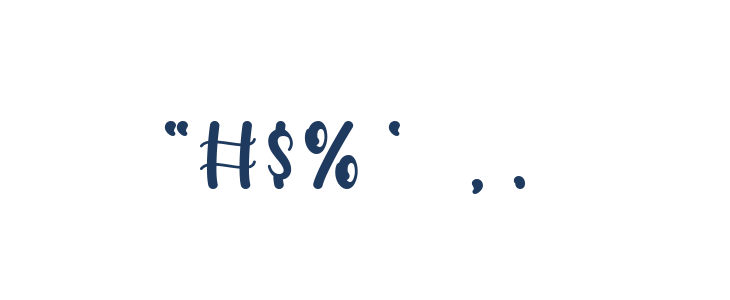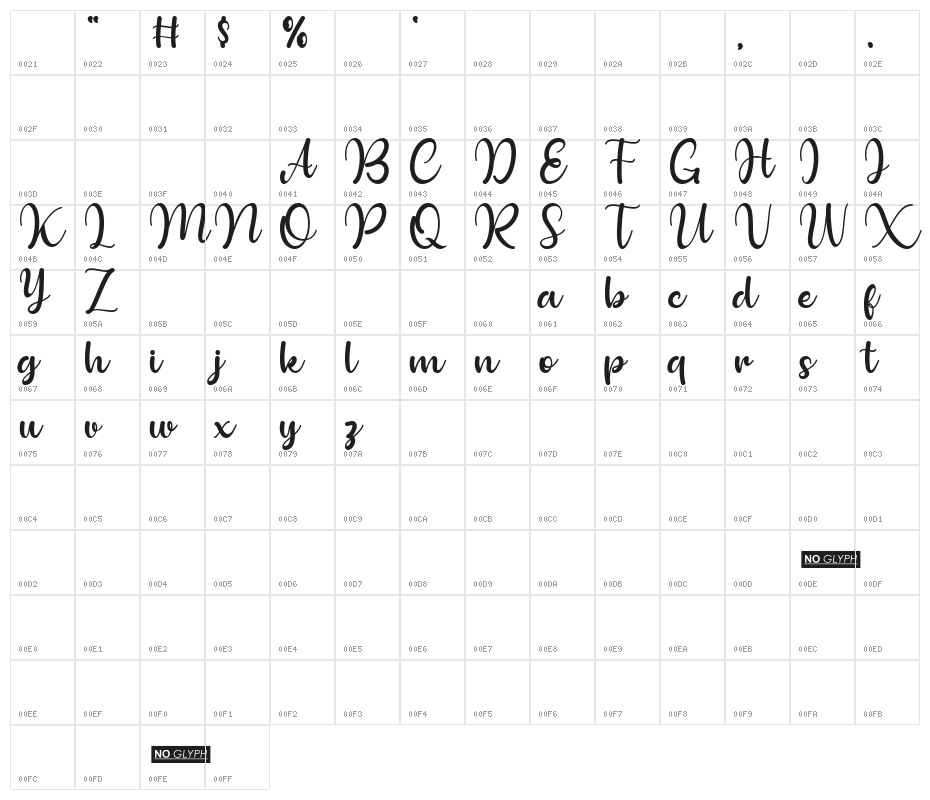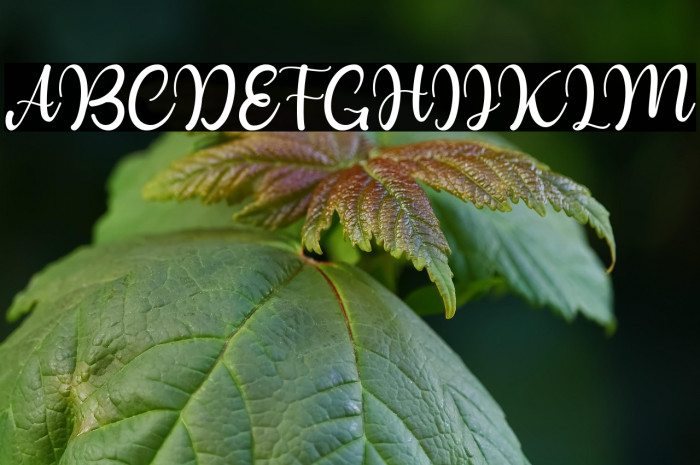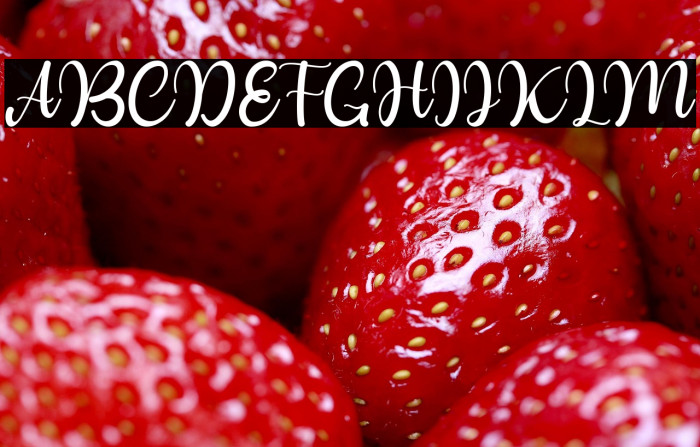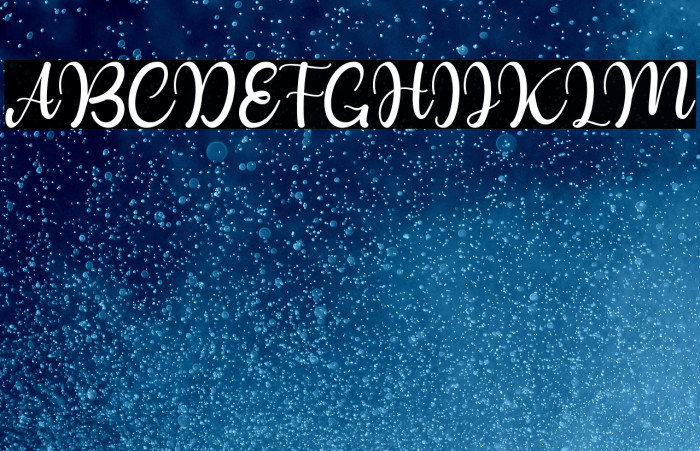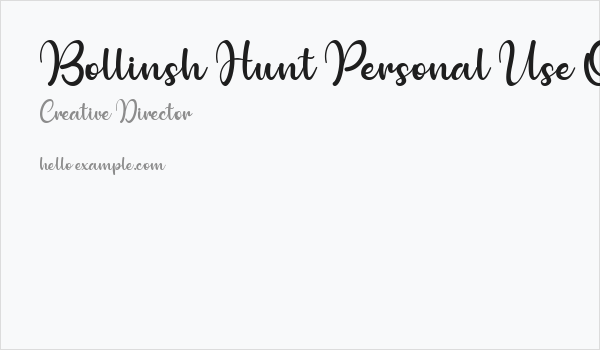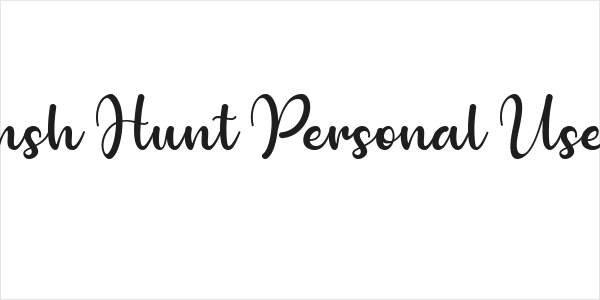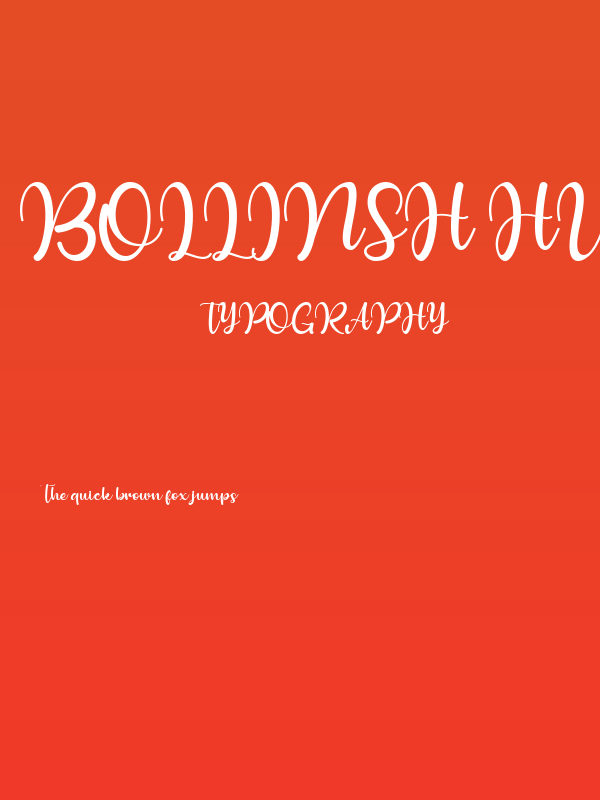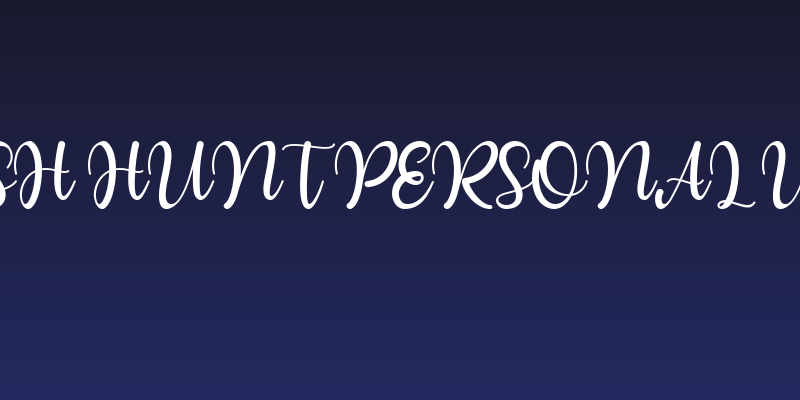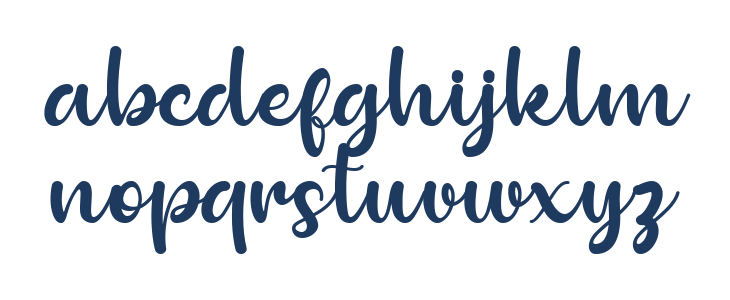
This font features a flowing, cursive style with elegant, sweeping strokes that give it a handwritten appearance. The uppercase letters are characterized by their tall, graceful loops and smooth curves, while the lowercase letters maintain a consistent flow, enhancing the script-like quality. The font exhibits a playful yet sophisticated vibe, making it suitable for creative and formal applications. The special characters are designed to complement the overall style, maintaining the same fluidity and elegance. This font is perfect for adding a personal touch to any design.
| Proposed Projects | Ideal for wedding invitations, greeting cards, branding projects, and any design requiring a personal, elegant touch. |